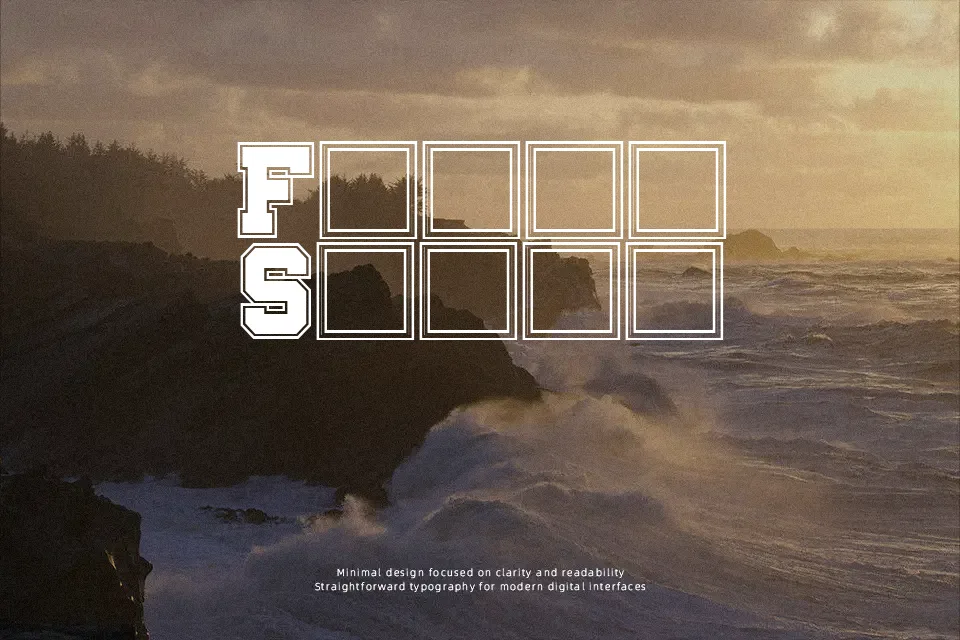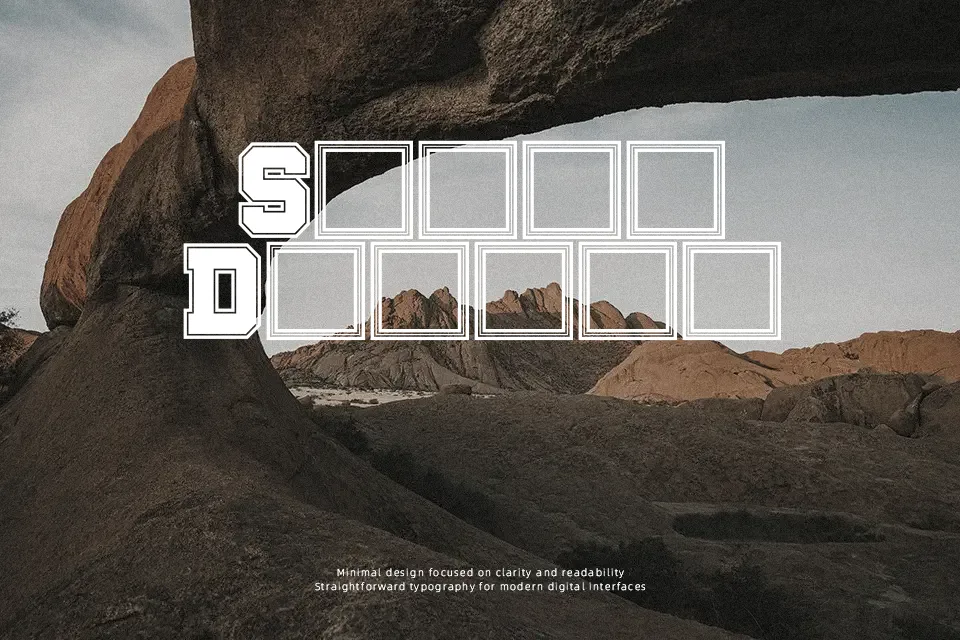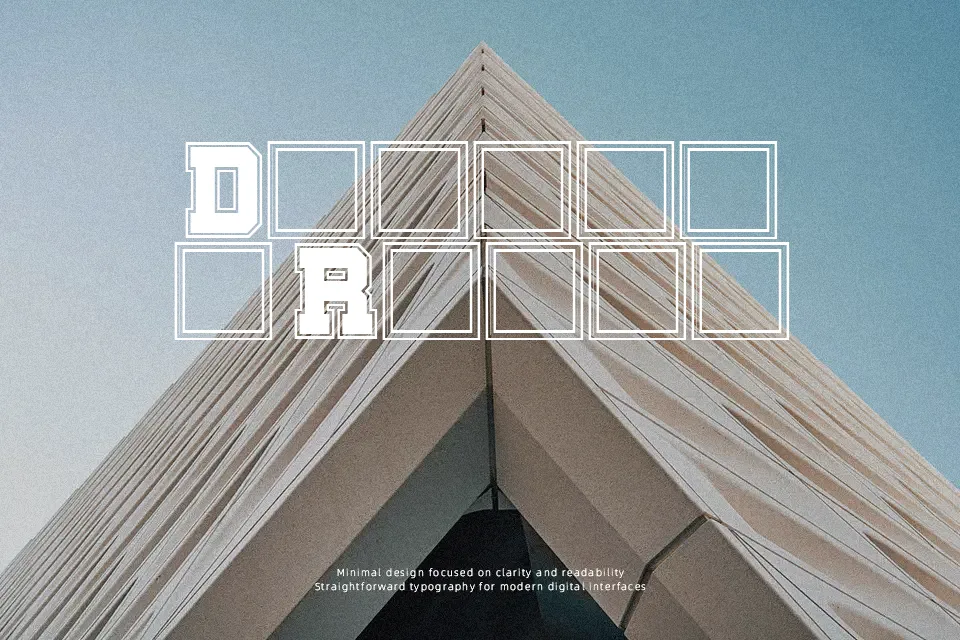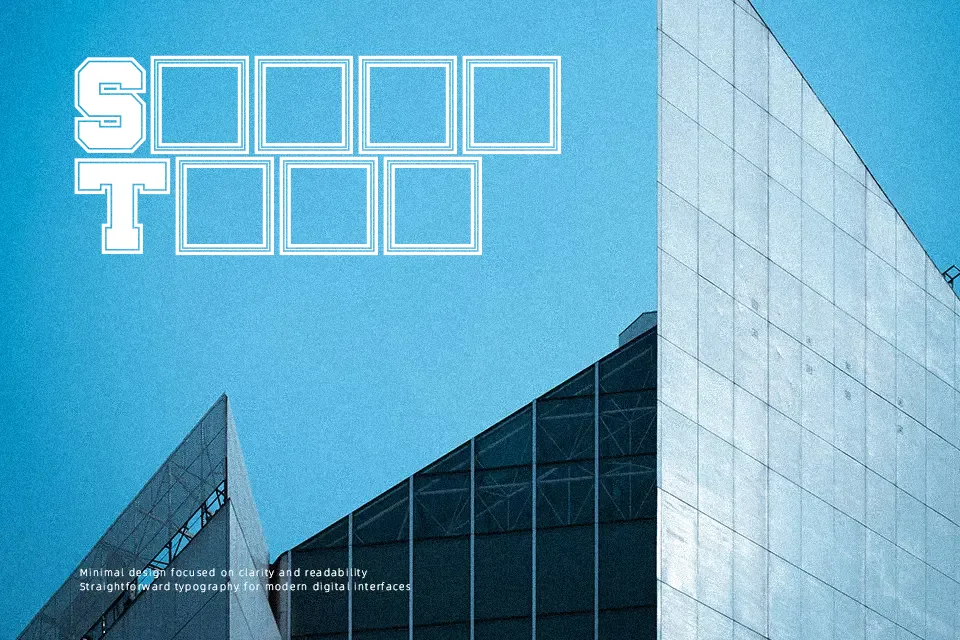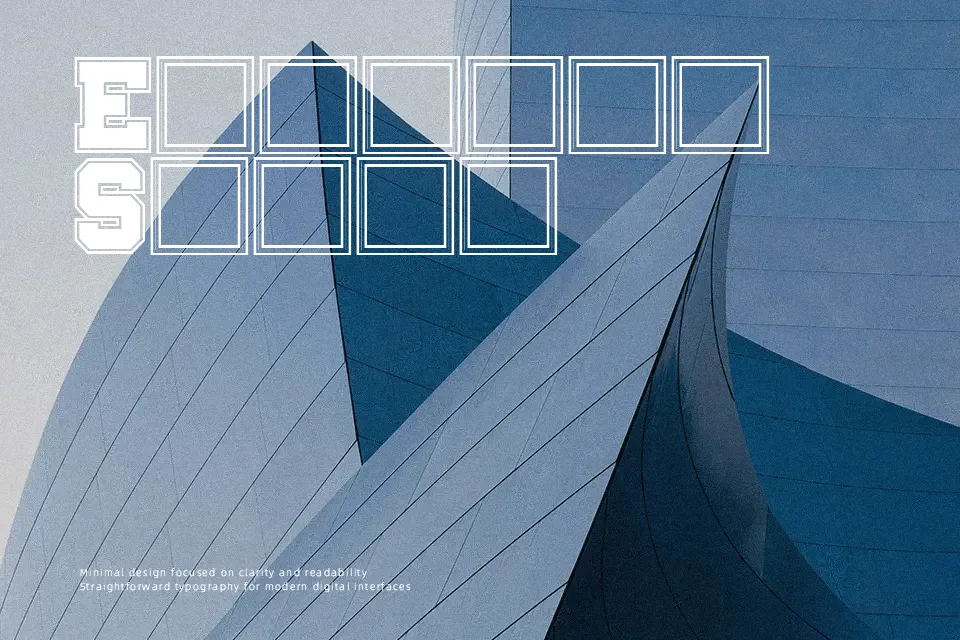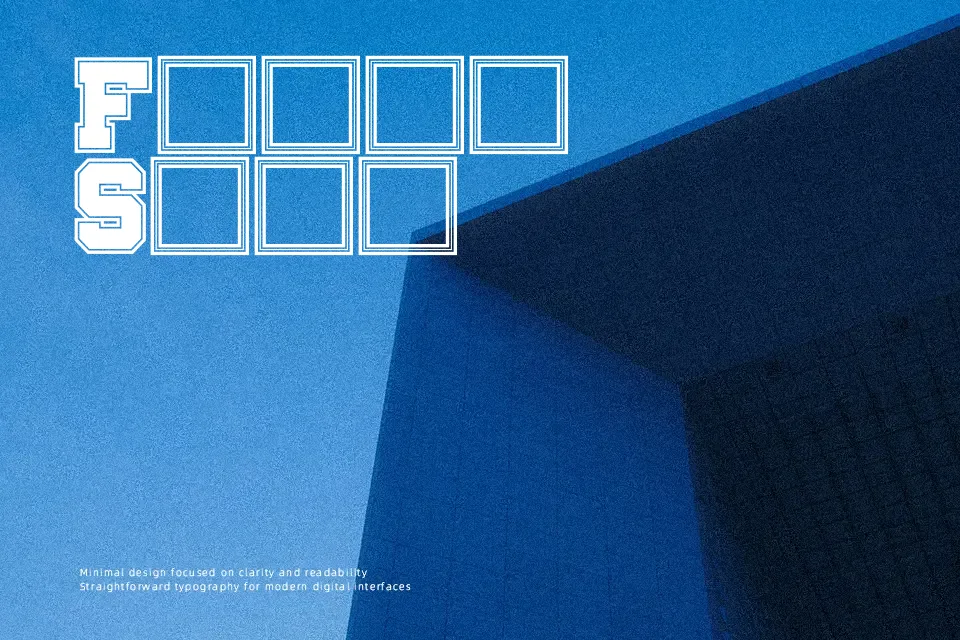
Big Campus Font
Big Campus leans into the familiar varsity look with chunky, uppercase letterforms framed by a clean outline that adds a subtle three‑dimensional punch. Strokes are broad with low contrast and regular spacing, so words feel sturdy and compact rather than airy. The overall impression is casual, athletic, and slightly retro, making it useful for school spirit wear, sports team logos, pep rally posters, and club banners. It works well when you only need a few bold words, but its all‑caps, decorative structure becomes tiring and visually heavy in long text or small sizes. If you like classic college block fonts, this is a solid option when you want something loud but not overly stylized.
sports team logos
university event posters
school club banners
campus merchandise headings
formal corporate reports
small caption sizes
minimalist editorial layouts